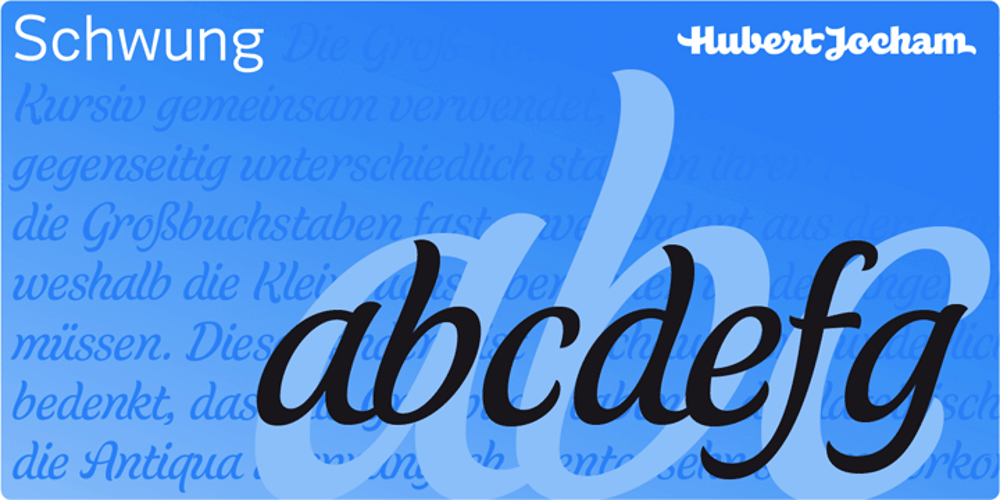
Schwung
Schwung font
Schwung Font Family was designed by Hubert Jocham and published by Hubert Jocham Type. Schwung contains 2 styles and family package options. Schwung is a brush script headline typeface. It has round elegant swirls that get stronger in the alternate version. Ideal for food packaging and product branding, it is designed to be clear and self-confident. Schwung does not need very much space to make it work perfectly on food labels.